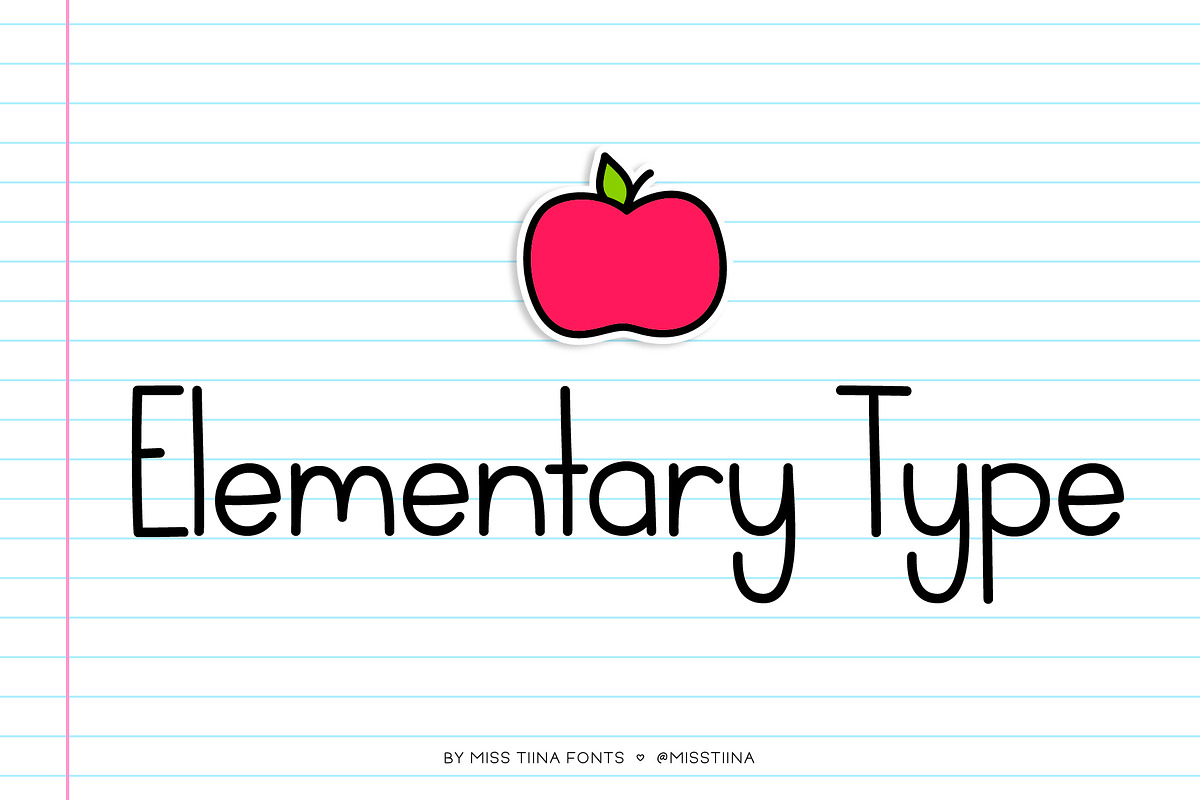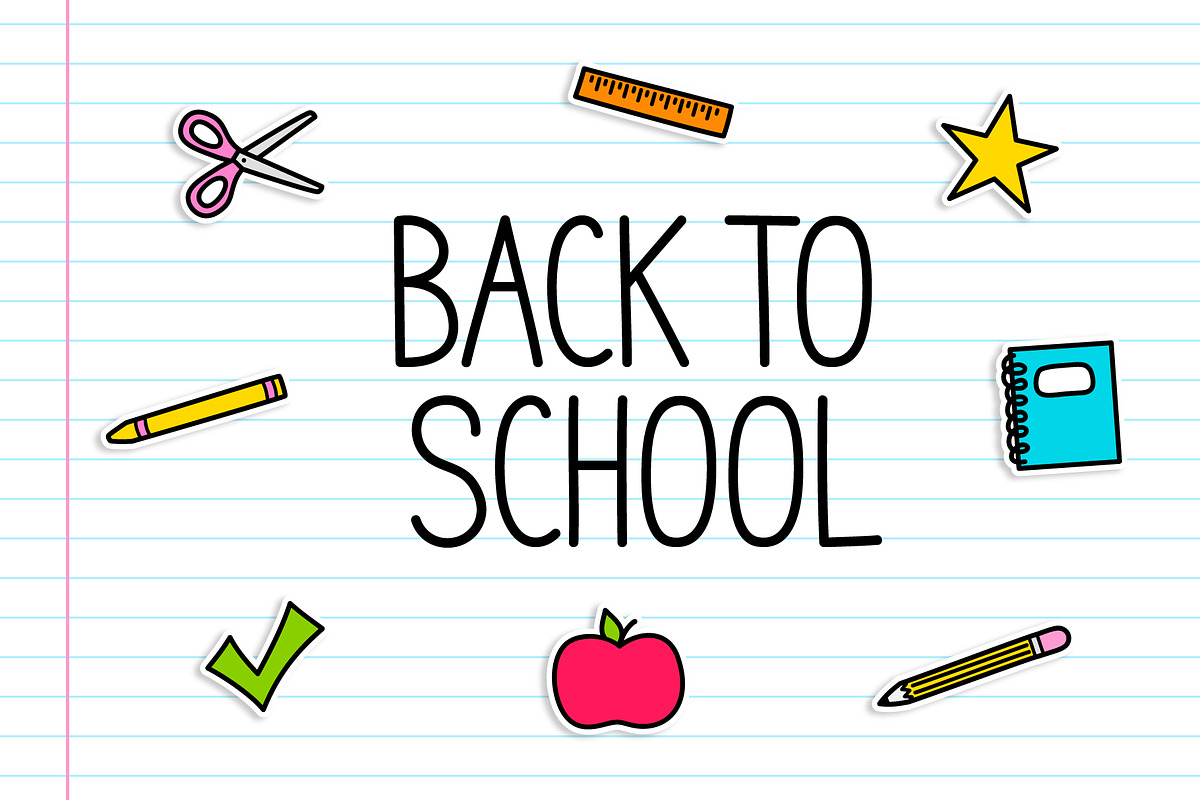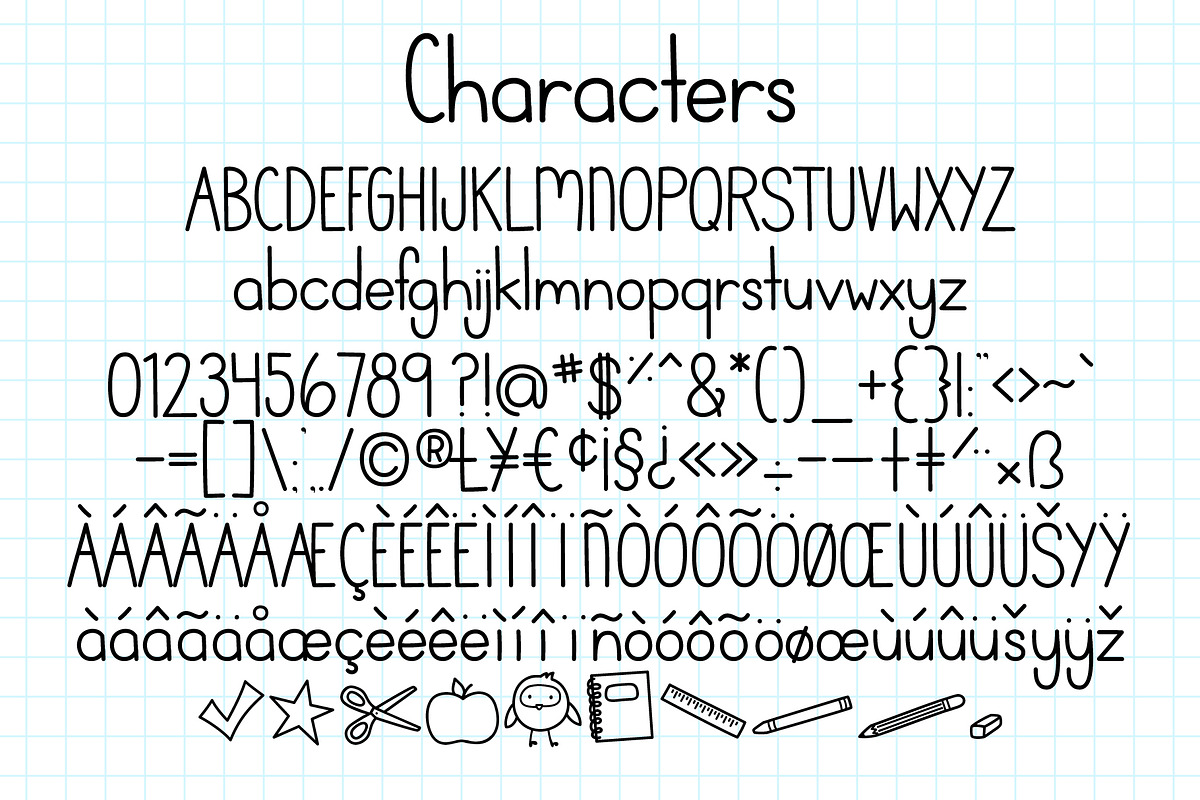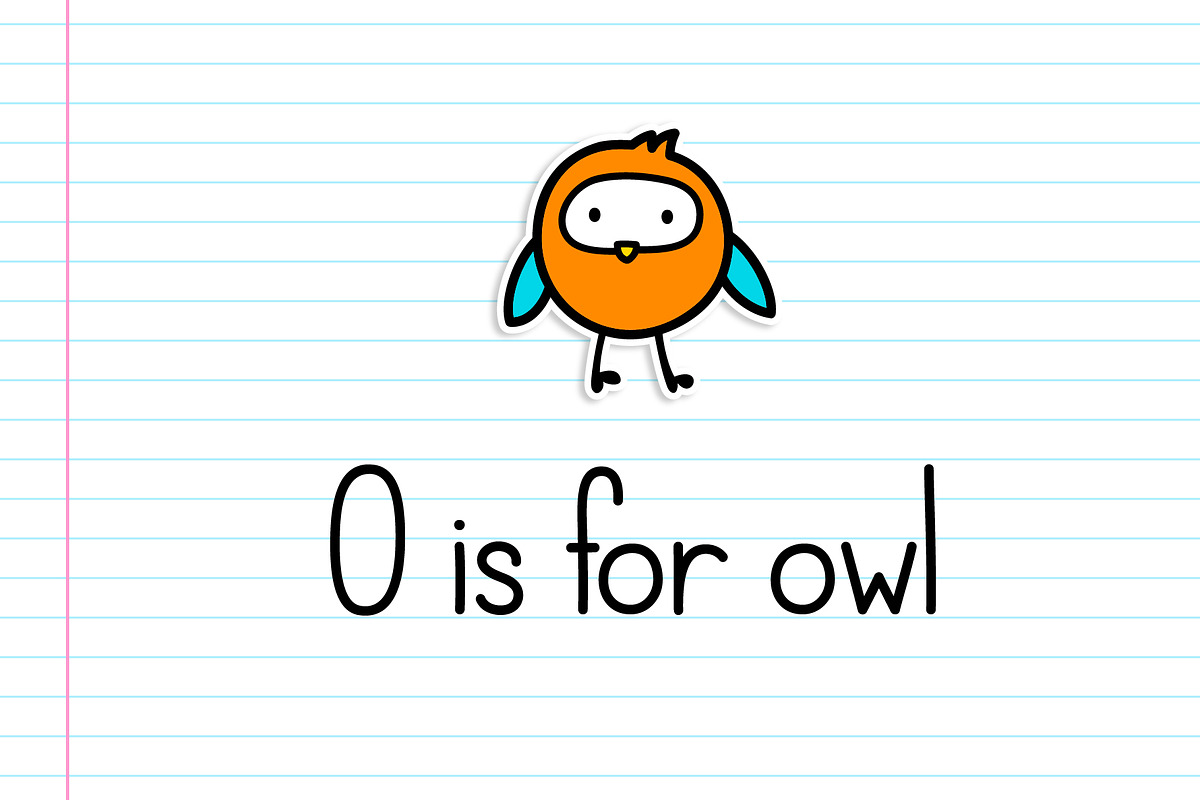
Elementary Type Font
Elementary Type is a cute, friendly and playful handwritten font perfect for school projects, lesson sheets, children’s books, stationery, planners and many other various projects. This font is especially crafted for children and teachers and also it includes 10 super cute school-themed doodles.